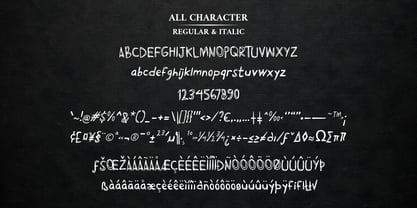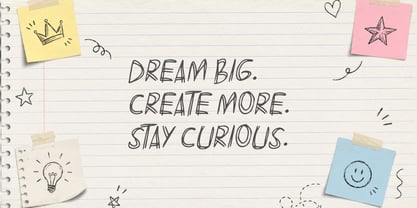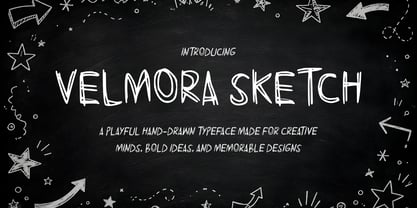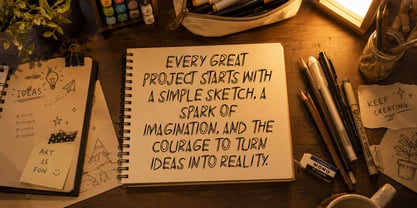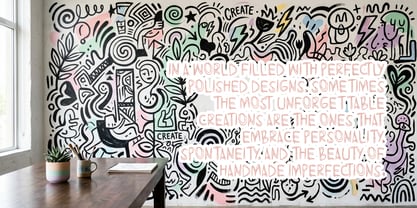
Velmora Sketch
The Velmora Sketch Font Family was designed by Wahyu Eka Prasetya, Mei Suseno and published by Mei Suseno. Velmora Sketch contains 2 styles and family package options. More about this family
Velmora Sketch is a playful hand-drawn display font inspired by the charm of spontaneous pencil sketches and creative doodles. Its organic lines, imperfect strokes, and handcrafted appearance bring warmth, personality, and authenticity to any design. Designed to capture the feeling of ideas coming to life on paper, Velmora Sketch adds a fun and imaginative touch while maintaining excellent readability.
Perfect for creative branding, children's products, posters, social media graphics, packaging, journals, DIY projects, and artistic merchandise, this font effortlessly creates a friendly and approachable atmosphere. Whether you're designing a whimsical quote, a handmade-inspired logo, or a playful headline, Velmora Sketch helps your message stand out with character and creativity.
Features:
• Hand-drawn sketch style
• Playful and expressive character shapes
• Natural, organic strokes
• Great for headlines and display text
• Suitable for creative and casual designs
• Easy to pair with minimalist or handwritten fonts
Best Used For:
• Branding & Logos
• Children's Designs
• Posters & Flyers
• Social Media Content
• Scrapbooking & Journals
• Packaging Design
• Creative Merchandise
• DIY & Handmade Projects